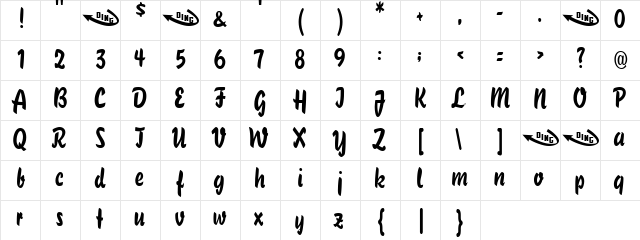
Soul Deep Regular
Design Context for Soul Deep Typeface
Soul Deep is a composed and adaptable typeface that performs quietly and consistently across a wide range of design contexts.
Pro Tip: Use Soul Deep in both headline and body roles to test its range before committing to a single application.